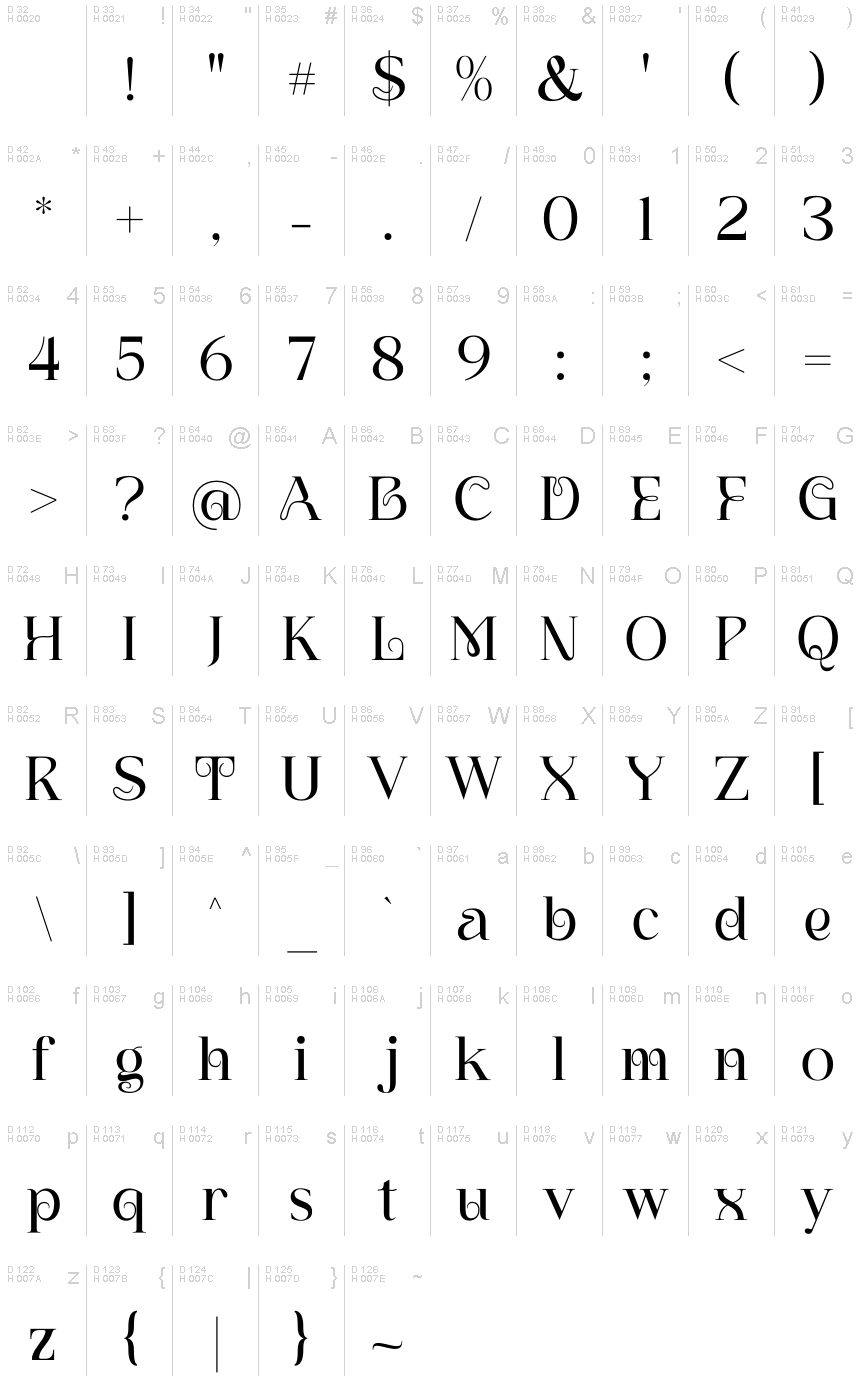
Anchora
Anchora, a captivating display font created by the creative minds at Storytype Studio, exudes a delightful retro charm. With its elegant, curved letterforms and graceful, flowing lines, this typeface evokes a sense of timeless sophistication. Anchora's distinctive character and attention to detail make it a standout choice for designers seeking to infuse their projects with a touch of vintage-inspired allure.
Anchora's versatility shines through, making it a versatile choice for a wide range of design applications. From eye-catching headings and impactful logos to captivating branding materials, this font's unique personality can elevate any visual composition. Whether you're crafting a retro-themed poster, designing a nostalgic album cover, or curating a sophisticated editorial layout, Anchora's charming qualities are sure to captivate and engage your audience.